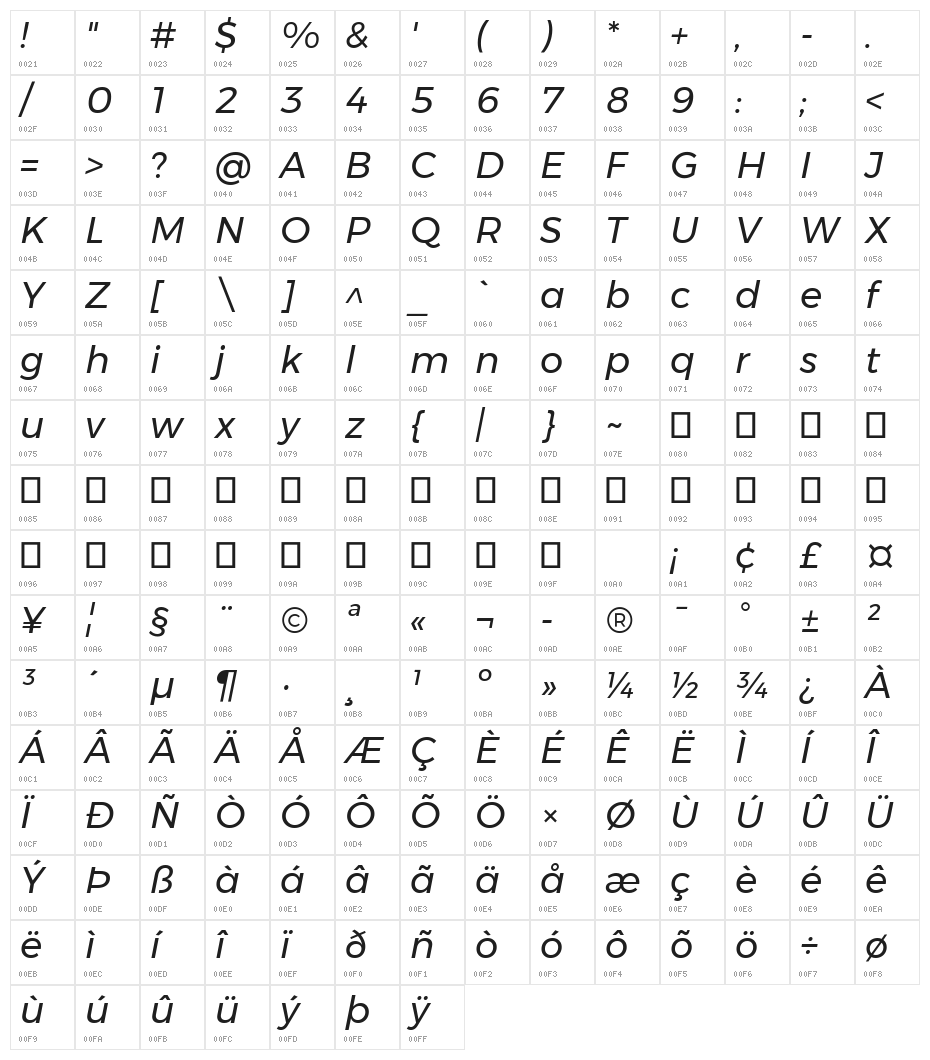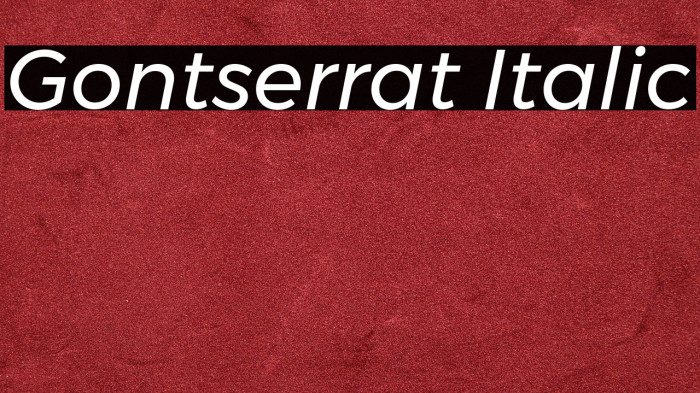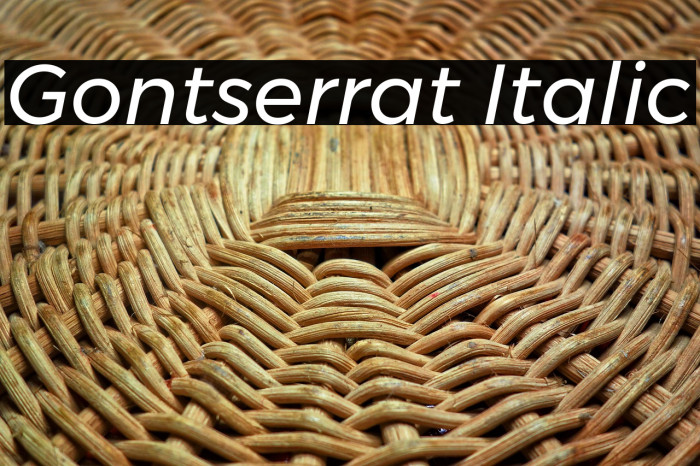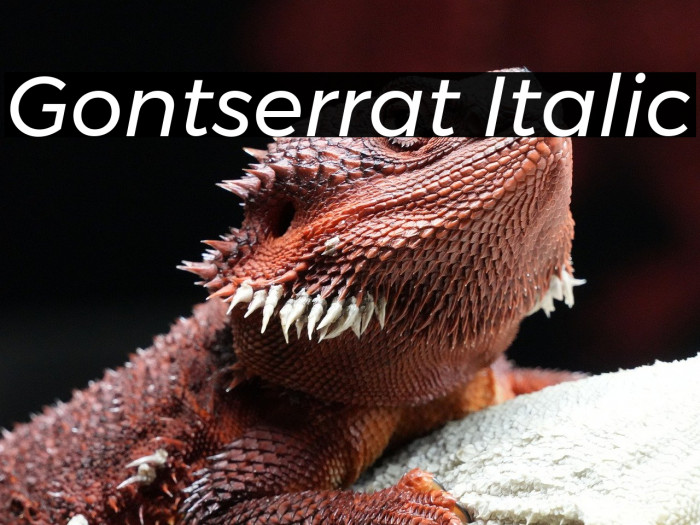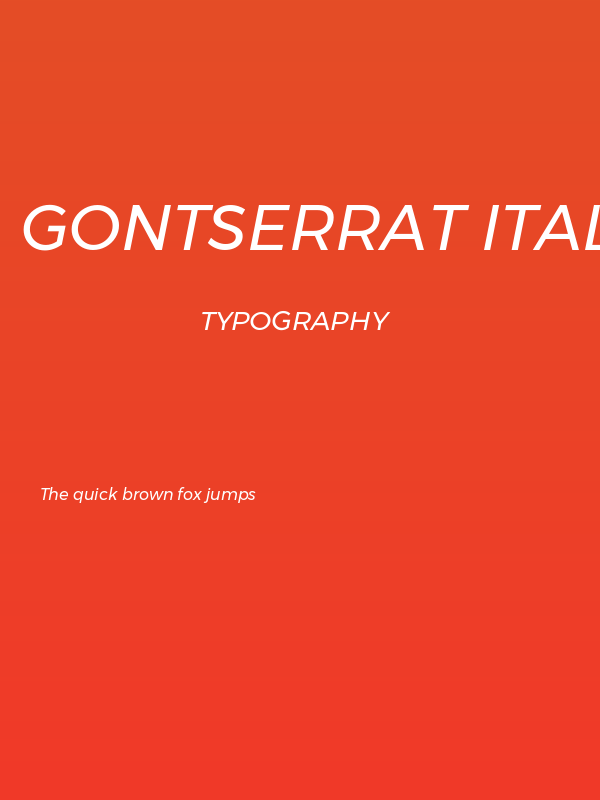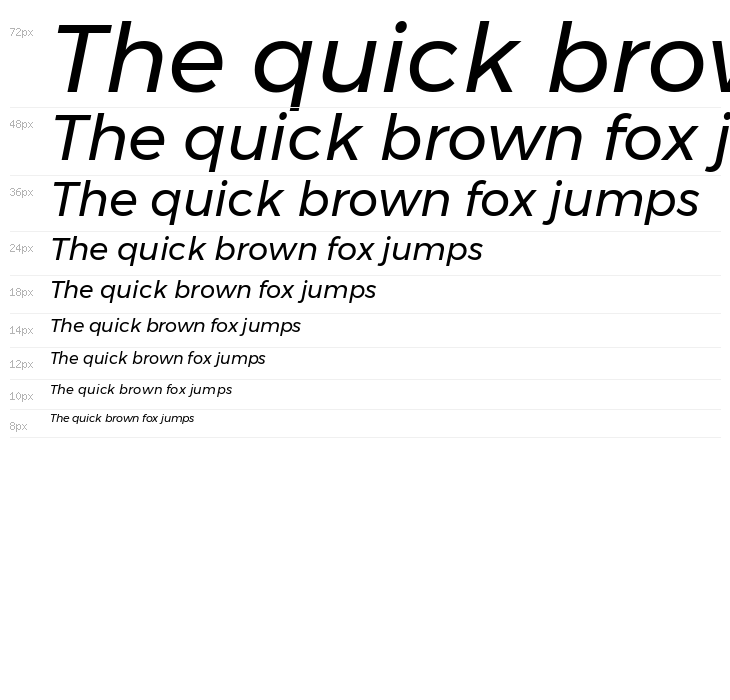
Gontserrat Italic Font
Gontserrat Italic Description
This font features a sleek and modern design with a subtle italic slant, giving it a dynamic and sophisticated appearance. The characters are well-proportioned with a consistent stroke width, contributing to a clean and polished look. The font maintains a balanced contrast, making it highly legible across various sizes. Its sans-serif style adds to its contemporary feel, while the slight curvature in certain letters adds a touch of elegance. The spacing between characters is normal, ensuring readability without compromising on style. This font is versatile, suitable for both digital and print media, and can be effectively used in a wide range of design projects.
| Proposed Projects | Ideal for branding, advertising, web design, and editorial layouts. |